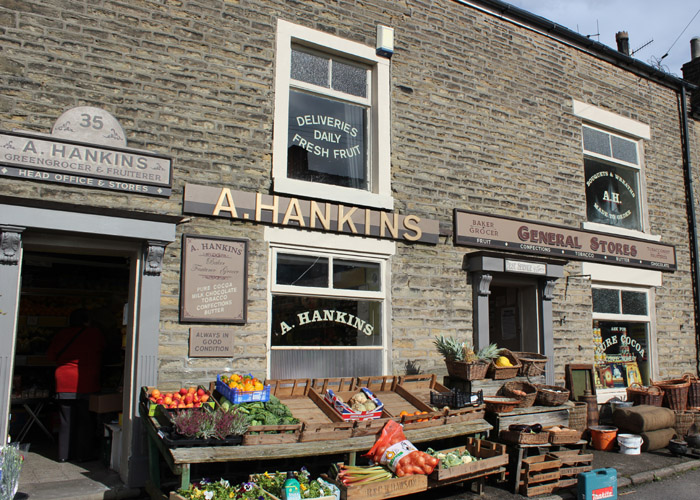
Landed a nice job with the BBC last year for a period drama which is being shown on Sunday nights. Called THE VILLAGE it is a story of one mans life in a Northern village spanning the whole of the 20th century. All the signs were hand painted. I did not get much input on the designs or colour schemes at first , All of that is done by the Art department but as it went on I did get more of a look in. It was one of the most interesting projects I have done seeing how all the filming works. Also very demanding 'When do you need this for? ' I would ask 'NOW' said the director. That's just the way in this industry. I don't as a rule do the facebook thing but my daughter has set up a page for me here https://www.facebook.com/pages/Terry-Co ... 9163677420
This has led onto some more TV work
Got my Sign work on TV
Very nice to see it Terry.
Must be a thrill to see your work on TV, Terry.
Went to check out your Facebook page, since I'm a relative newcomer on that scene as well. Very nice work. Wasn't able to get the BBC link to work but sometimes those BBC links don't work in the US. I think we first need to sing "God Save the Queen" or something like that before we're allowed access.
Brilliant Terry- I've been watching that and noticed the " proper' signwork. with interest... so often as you know in films and telly- that's NOT the case and it ruins a good film.- they spend a fortune on getting the right uniform for policemen.. then use terrible not period appropriate signs !
Well done ,Nice one !- Hope they see the value in your skills mate and long may it continue.
My experience in this field is very limited, but what I have done let me know that there is not a schedule to this type work - it's NOW! You don't say that you'll be there on Thursday. You are expected to do it right at the moment and not take too long getting it done.
But, it's fun to see all the work that goes into making a movie or commercial.
Nice one Terry, It's great to see it on there. I've been watching the series since you gave me the heads up about your involvement.
Waynes so right when he says about the money spent on TV period drama's attention to detail, then they put up a TNR vinyl thing on a white background with no boarder, fraes or shadow.